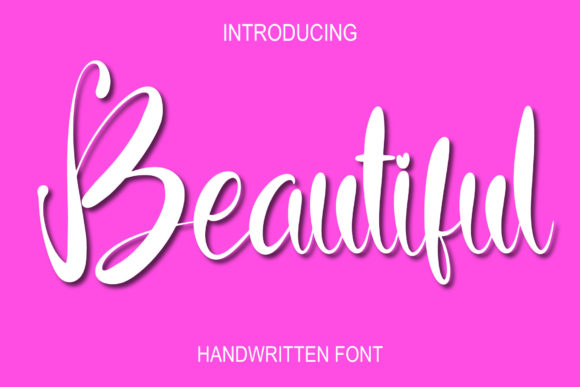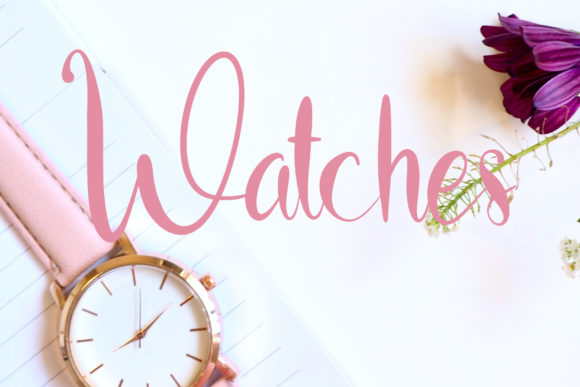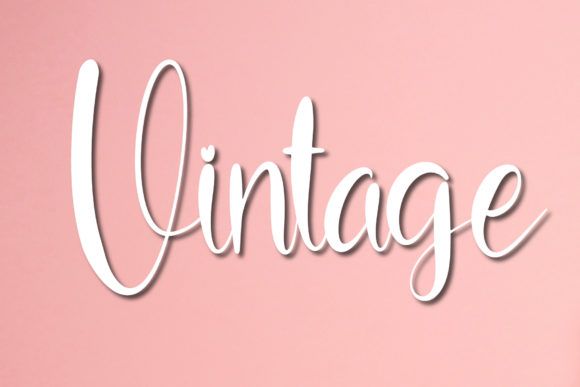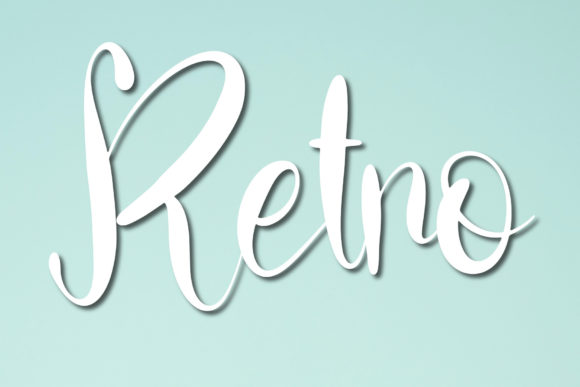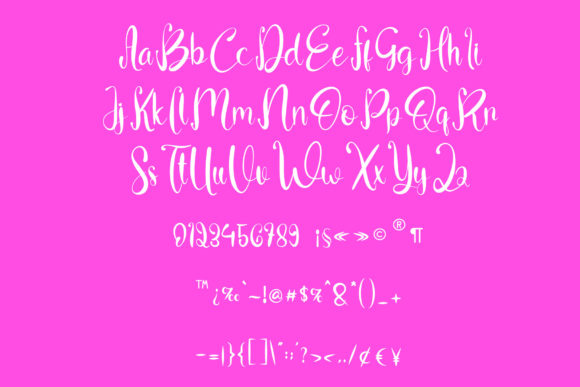
About Beautiful Font
“Beautiful” is a charming and delicate script font that radiates elegance and sophistication. It has been meticulously designed to cater to those seeking a beautiful and refreshing aesthetic for their designs.
The font’s lovely and delicate letterforms bring a sense of grace and refinement to your creations. Whether you’re working on branding, invitations, packaging, or digital graphics, “Beautiful” has the potential to infuse your projects with a touch of timeless beauty and visual allure.
The font’s craftsmanship is evident in its seamless adaptability to various design contexts. Its delicate script can enhance both formal and artistic projects, adding a layer of sophistication that resonates with viewers. By incorporating “Beautiful” into your designs, you introduce an aura of elegance and visual appeal that enriches the overall aesthetic.
In summary, “Beautiful” is more than just a font—it’s a creative tool that enhances your ideas with its lovely and delicate script. Its ability to exude elegance and its capacity to deliver a refreshing look make it a valuable asset for designers aiming to create captivating and visually enchanting designs that leave a lasting impression.